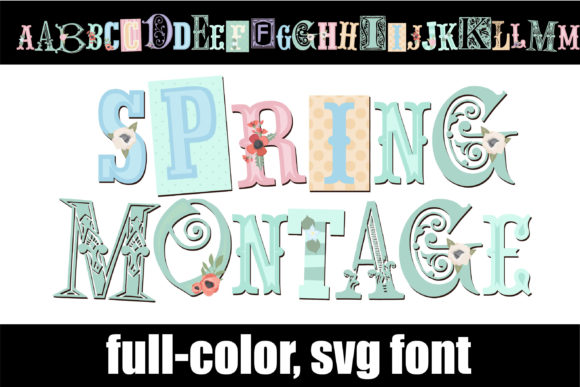
Strap yourself in for a springtime adventure with Spring Montage – the font family that spells out vitality and charm! Unleash the captivating energy of pastels with this full-color font montage, designed to make every creation pop with effortless chic. Imagine the delightful blend of whimsy and elegance as your words dance across the page or screen in a symphony of colors. Spring Montage isn't just a font; it's an artistic revelation that transforms the ordinary into the extraordinary!
Visual impact? Check! Emotional resonance? Double check! Spring Montage leaves no stone unturned in its quest to bring life to your designs. Let your imagination soar as you explore a world of possibilities, from whimsical invitations and vibrant posters to heartfelt greeting cards and captivating social media posts. The seamless blend of pastels in this font family evokes a sense of joy that's impossible to resist, leaving a lasting impression on anyone who encounters your creations.
Picture this: a dreamy wedding invitation adorned with Spring Montage, its pastel hues setting the tone for a joyous celebration. Or a captivating digital flyer announcing a spring festival, its vibrant colors inviting people to immerse themselves in the season's magic. The possibilities are endless, and the results are always breathtaking.